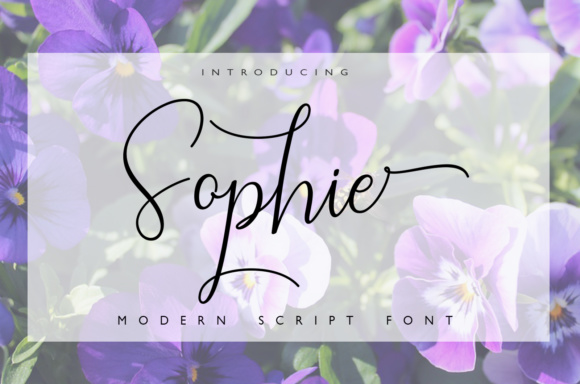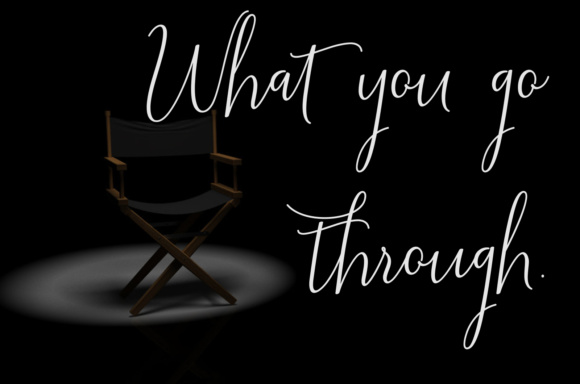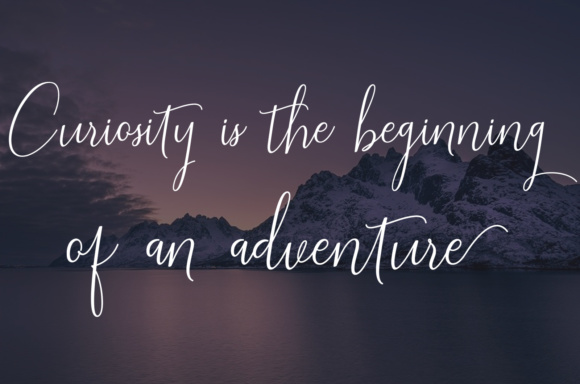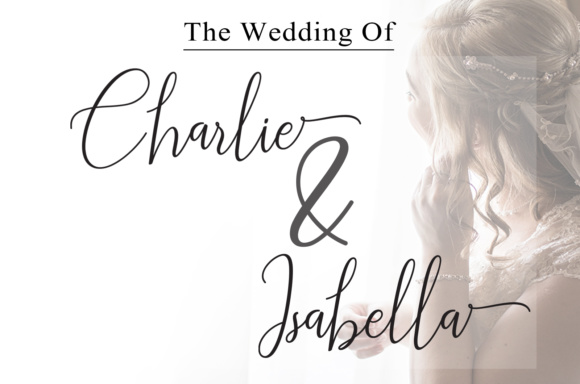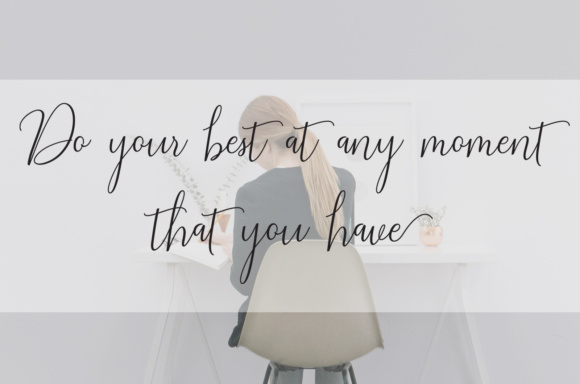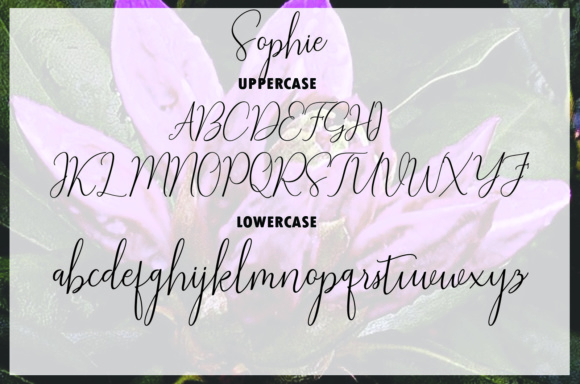
Sophie Font
About Sophie Font
The Sophie is a lovely calligraphy typeface. It’s combining a modern style with a classic calligraphy style which will give your design an elegant feel.